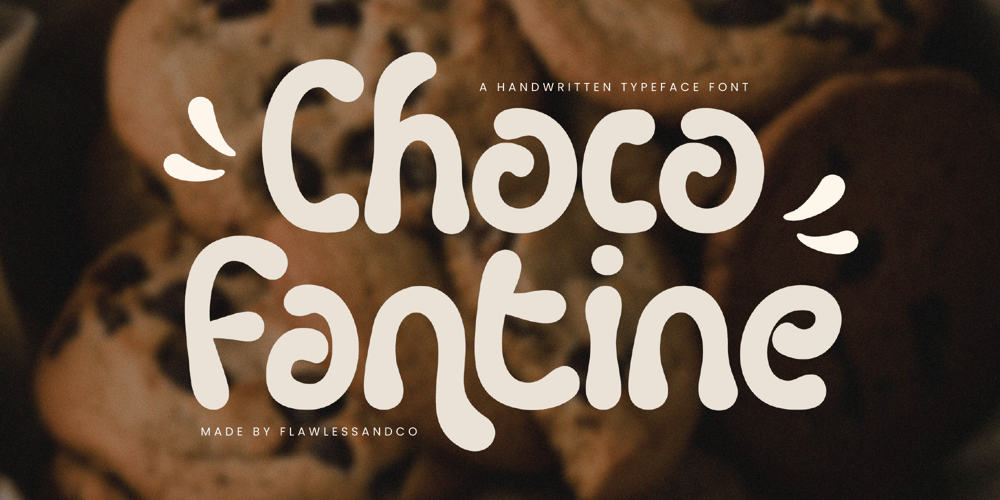
Choco Fantine Font Family was designed by Achmad Yani and published by Flawlessandco. Choco Fantine contains 1 styles and family package options. Introducing “Choco Fantine,” a delightful display font designed to bring a playful yet professional touch to your brand. With its bold and eye-catching letterforms, Choco Fantine adds personality and charm to any design, making it perfect for logo creation, packaging, and other branding materials.There’s some connected letters and some alternates that suitable for any graphic designs such as branding materials, t-shirt, print, business cards, logo, poster, t-shirt, photography, quotes .etcThis font support for some multilingual. Also contains uppercase A-Z and lowercase a-z, alternate character, numbers 0-9, and some punctuation.If you need help, just write me! Thanks so much for checking out my shop!